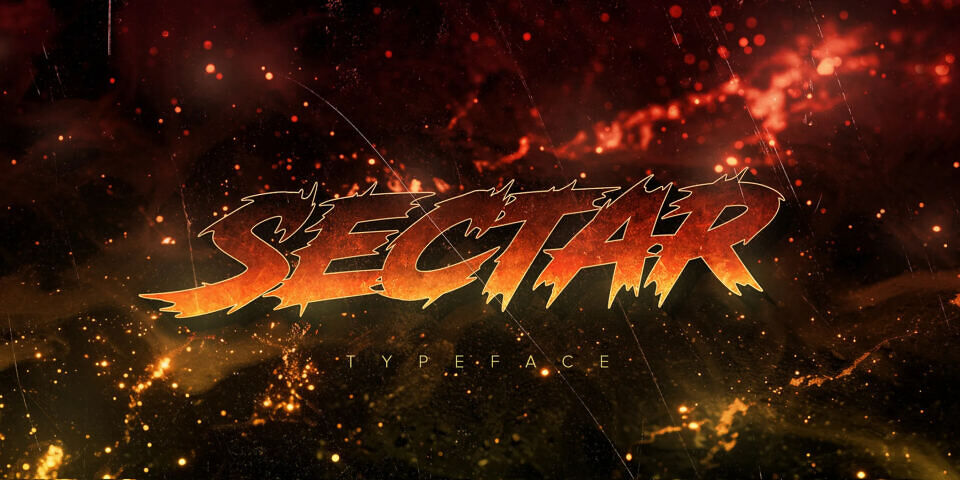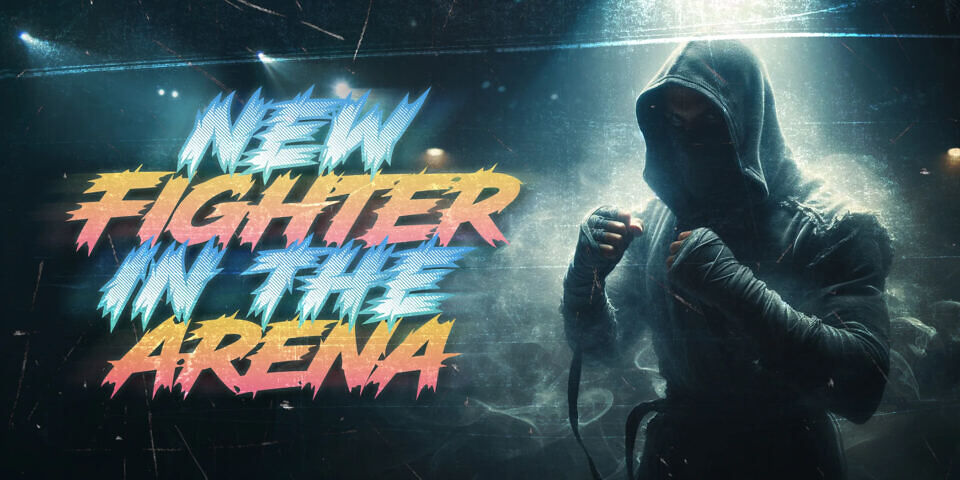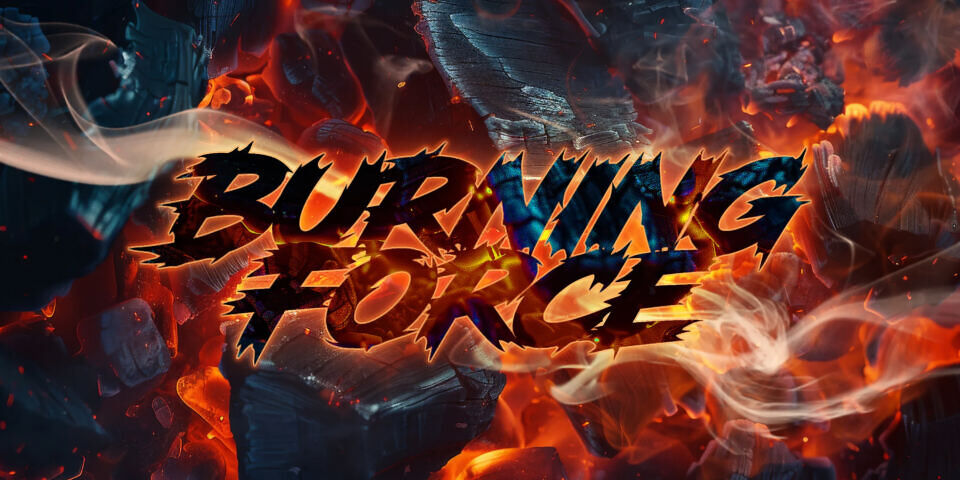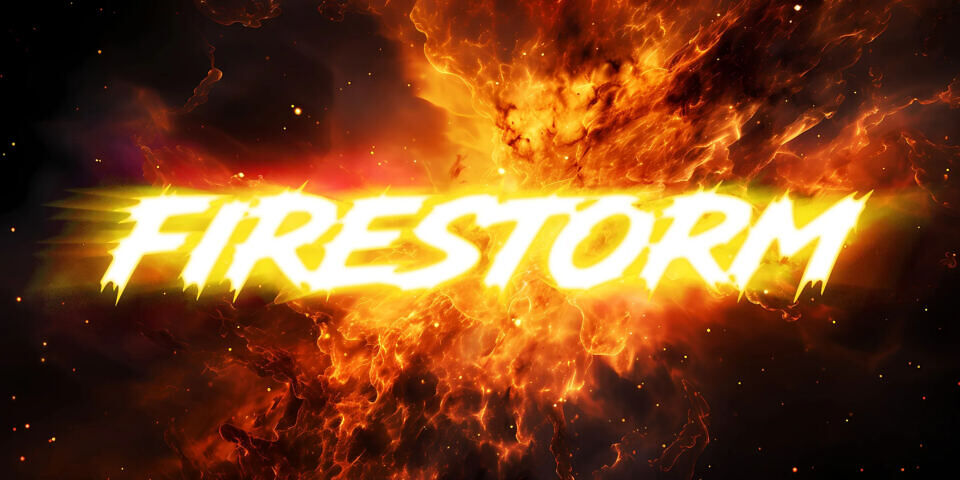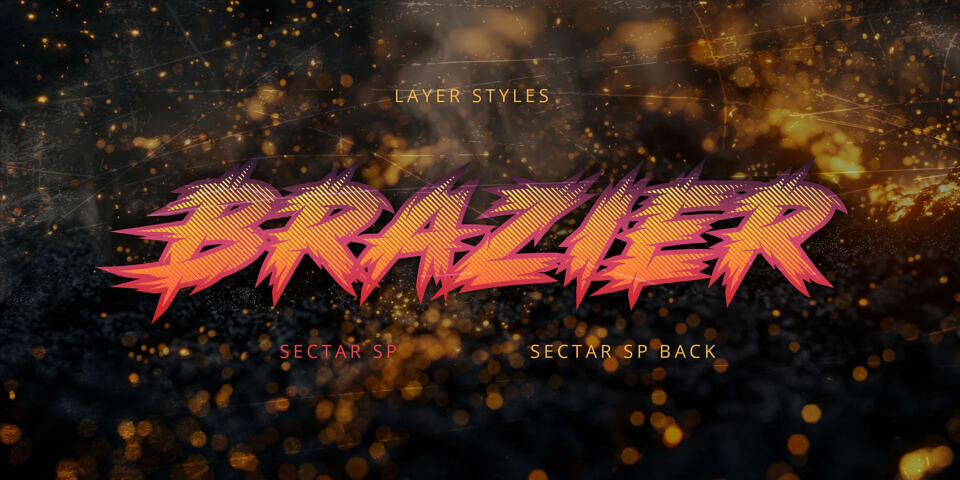
Sectar Font
Sectar is a bold, expressive display font designed by Youssef Habchi. Blending horror and grunge influences with a modern edge, it features sharp, spiky forms and dynamic strokes that create a striking visual impact.
Ideal for logos, posters, and edgy branding, Sectar adds intensity and personality to any design while maintaining good readability across headlines and creative projects. Three styles are included, among them a textured style.